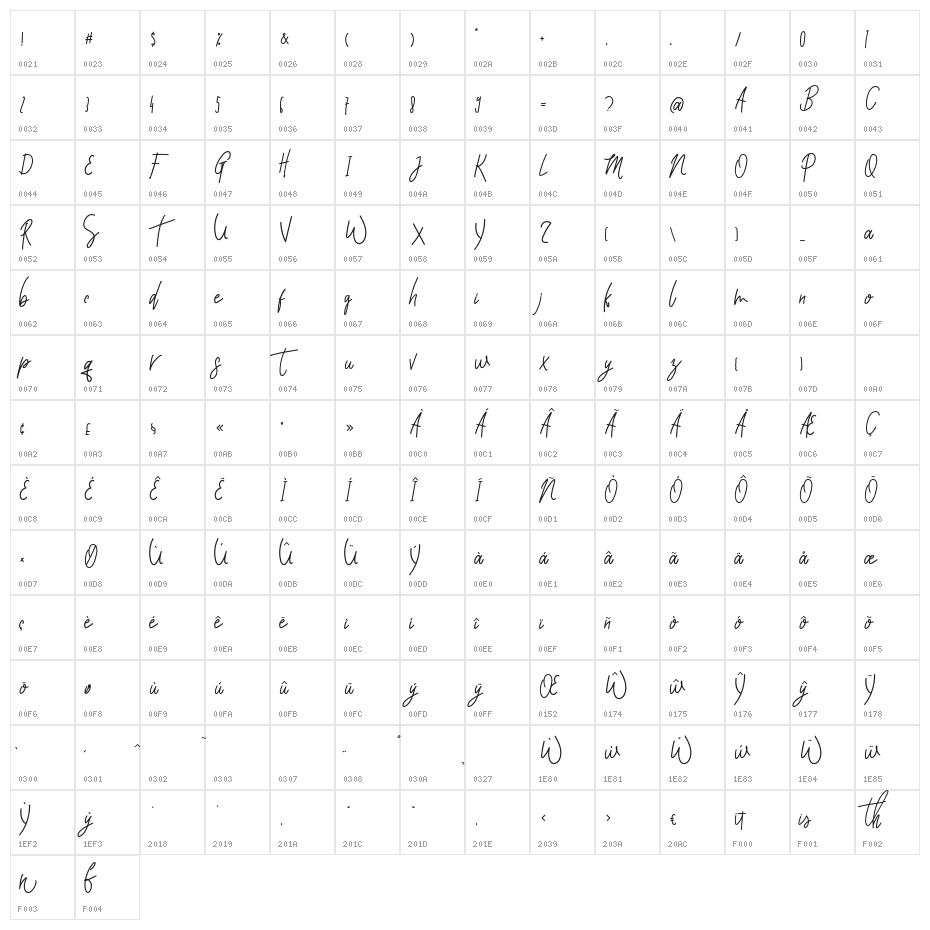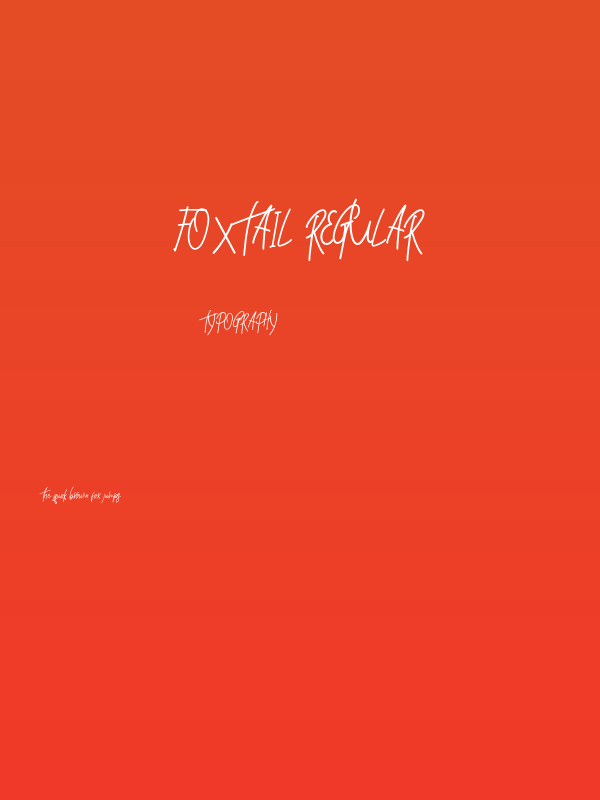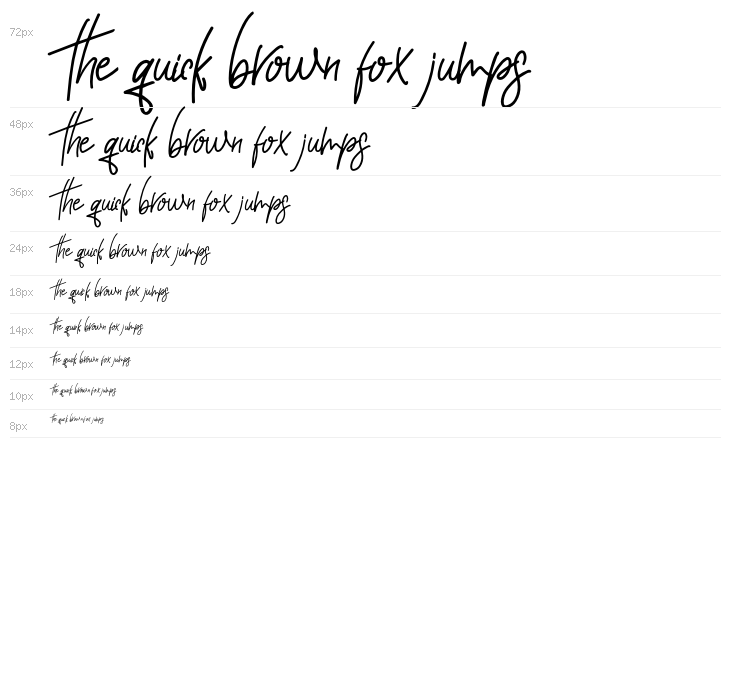
Foxtail Regular Font
Foxtail Regular Description
This font exhibits a lively and dynamic handwritten style, characterized by its fluid and cursive letterforms. The strokes are smooth and slightly irregular, giving it a personal and informal touch. The uppercase letters are tall and slightly slanted, while the lowercase letters maintain a consistent flow, enhancing the script-like appearance. The numerals and special characters are crafted with the same attention to detail, ensuring a cohesive look across all glyphs. This font is ideal for projects that require a personal, handwritten feel.
| Use Case | Logos, Invitations, Social media graphics |
| Proposed Projects | Greeting cards, personal branding, invitations, and social media graphics. |